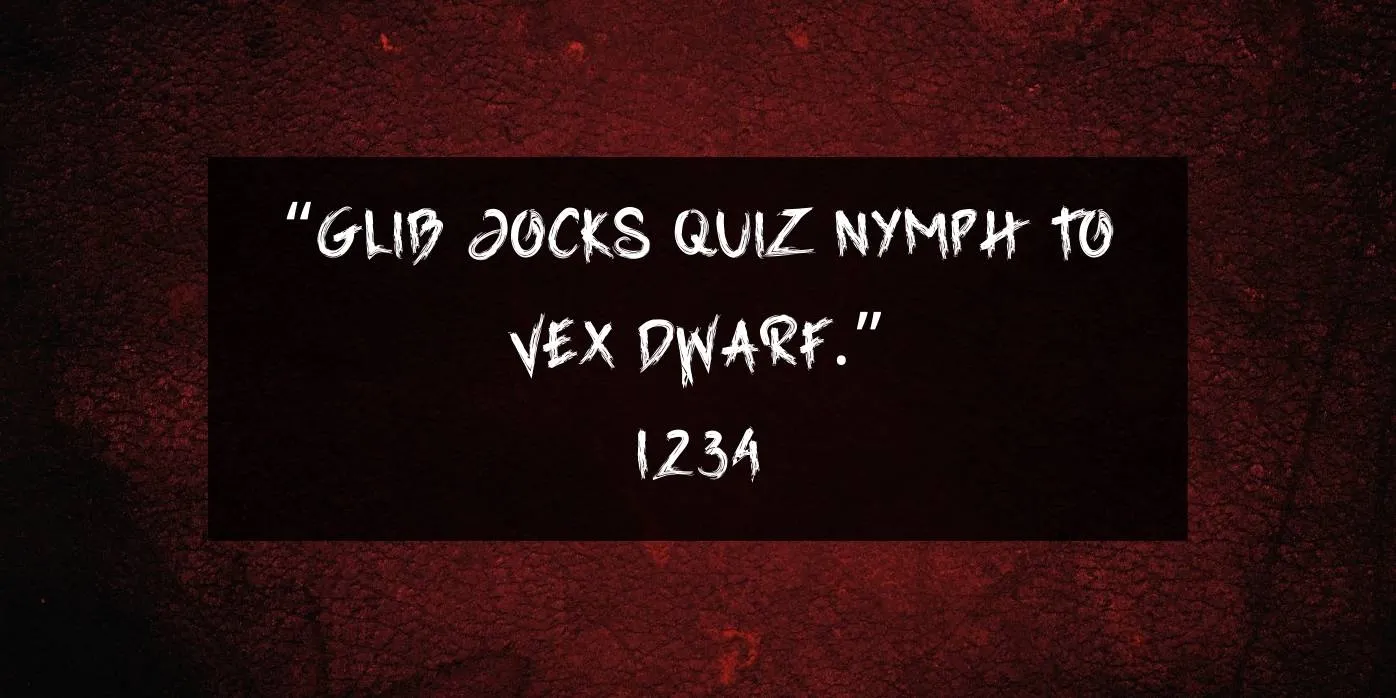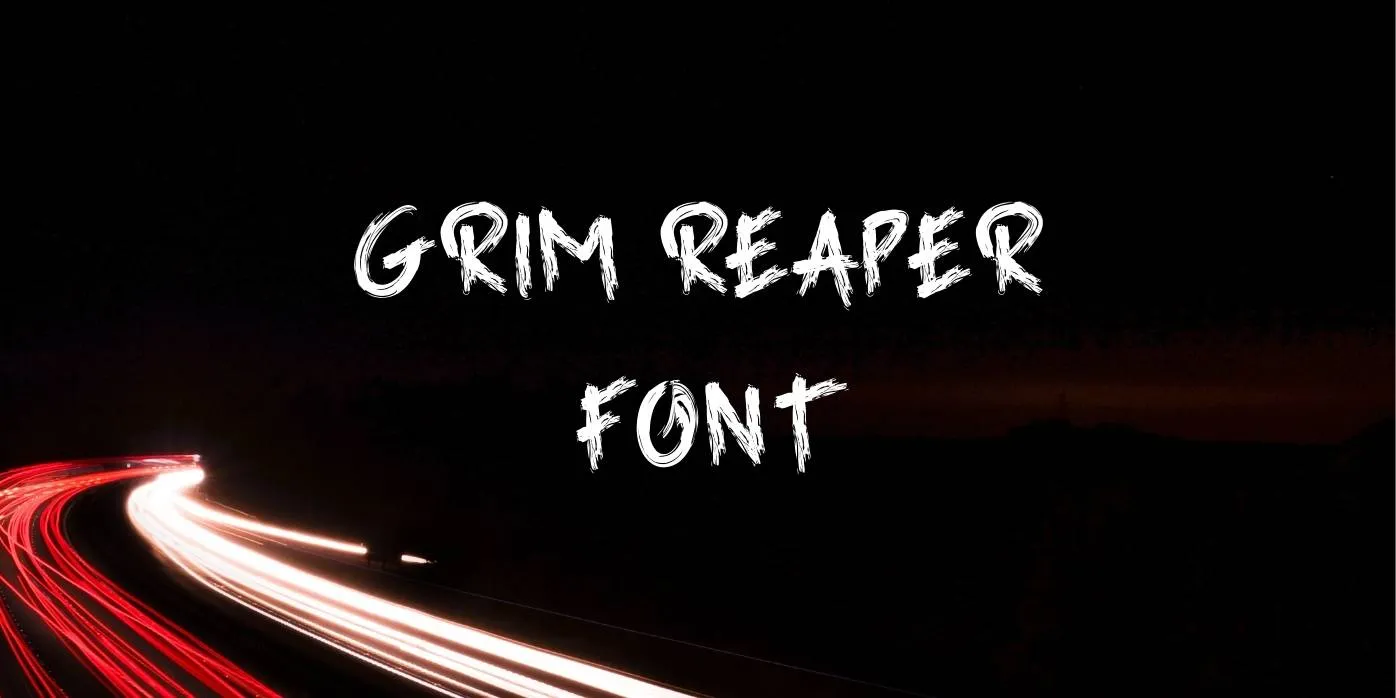
Grim Reaper Font
Grim Reaper Font is developed by Naharstd. This classy typeface belongs to the brush family.  The letters in this typeface have a rough and dry look. This makes it perfect for creating Halloween-themed designs. The best thing about Grim Reaper Typeface is that it is free for personal use.